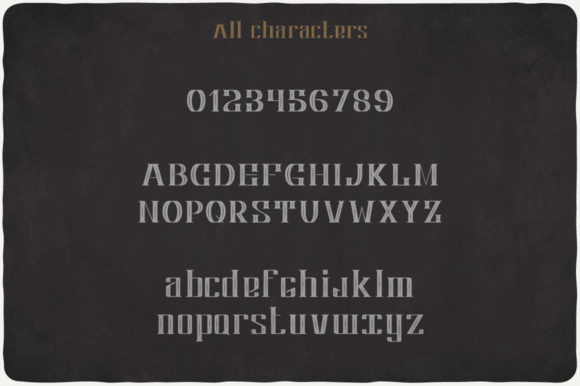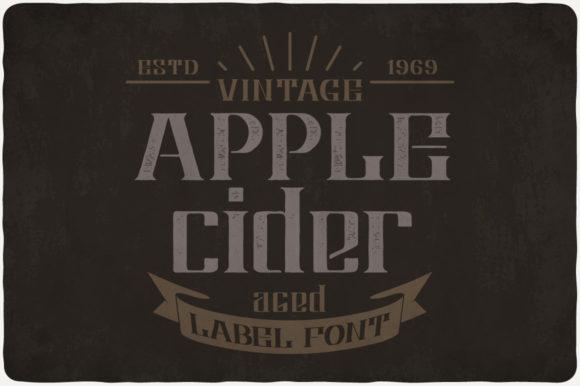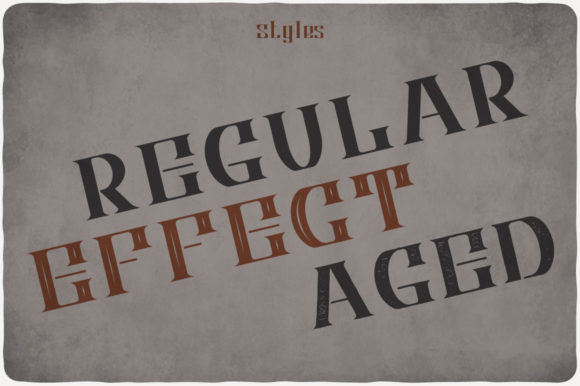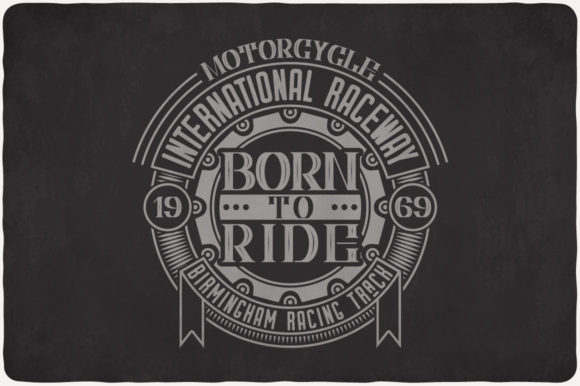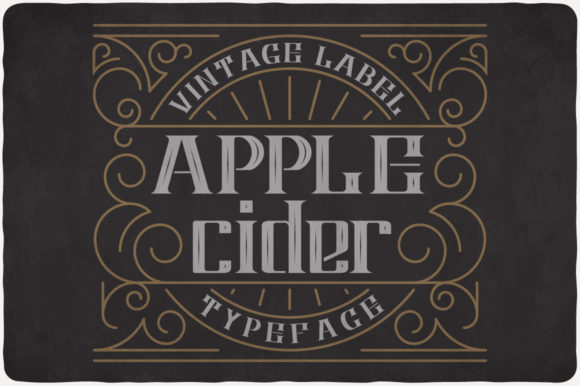
The Apple Cider Font: A Bold and Vintage Addition to Your Design Arsenal
I’ll never forget the design project that led me to discover the Apple Cider font. I was working on a branding project for a craft cider company, and I needed a font that would evoke a sense of nostalgia and sophistication. After hours of scouring font libraries and online marketplaces, I stumbled upon Apple Cider – a bold and vintage-styled display font that instantly caught my eye.
As I began to experiment with Apple Cider, I knew I had found the perfect fit for my project. Its unique blend of classic and modern elements made it an incredibly versatile font that could elevate any design. In this article, I’ll share my experience with Apple Cider, including its strengths and limitations, and provide a practical guide on how to use it on various design platforms.
An Honest Review of Apple Cider Font
What I Love About Apple Cider ✨
• 💥 Bold and eye-catching: Apple Cider is a statement font that demands attention. Its bold weight and vintage flair make it perfect for headlines, titles, and promotional materials.
• 📚 Sophisticated and elegant: Despite its bold nature, Apple Cider exudes a sense of sophistication and elegance, making it suitable for high-end brands and luxury products.
• 🎨 Highly versatile: Apple Cider can be used in a variety of design contexts, from print to digital, and can be easily paired with other fonts to create a unique visual identity.
• ✅ Easy to read: Despite its bold weight, Apple Cider remains surprisingly legible, even at smaller sizes.
While Apple Cider is an exceptional font, it’s not without its limitations. Here are a few quirks to keep in mind:
• ⚠️ Limited use for body text: Due to its bold weight, Apple Cider may not be the best choice for body text or lengthy paragraphs.
• ⚠️ Some glyphs may require manual adjustment: Depending on the design context, some glyphs (such as the ampersand or dollar sign) may require manual adjustment to ensure proper alignment.
One of the standout features of Apple Cider font is its support for OpenType features and glyphs. These features allow you to customize your text and add unique flourishes to your design. Here are a few examples:
• Stylistic alternates: Apple Cider includes stylistic alternates that allow you to swap out certain glyphs for alternative versions.
• Ligatures: Apple Cider supports ligatures, which can help to create a more cohesive and polished look.
The Backstory Behind Apple Cider Font
According to its designer, Apple Cider font was inspired by the classic typography of the early 20th century. The designer sought to create a font that would evoke a sense of nostalgia and sophistication, while still feeling modern and fresh.
Font Name Apple Cider Font
Author Vozzy Vintage Fonts And Graphics
Q: Is Apple Cider font suitable for body text?
A: While Apple Cider font is legible, its bold weight may make it less suitable for lengthy body text. It’s best used for headlines, titles, and short paragraphs.